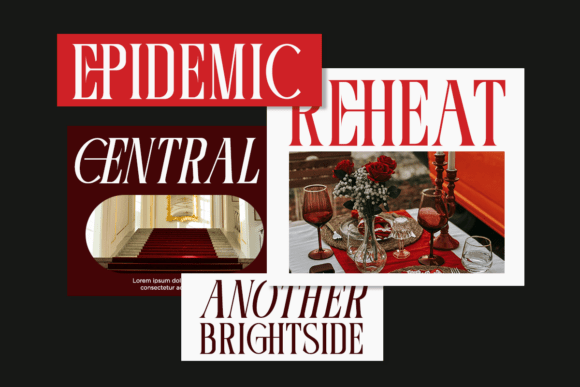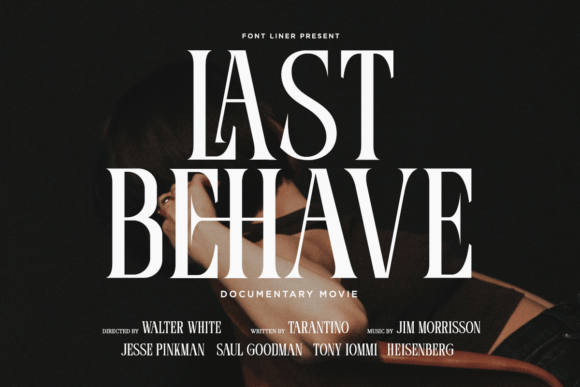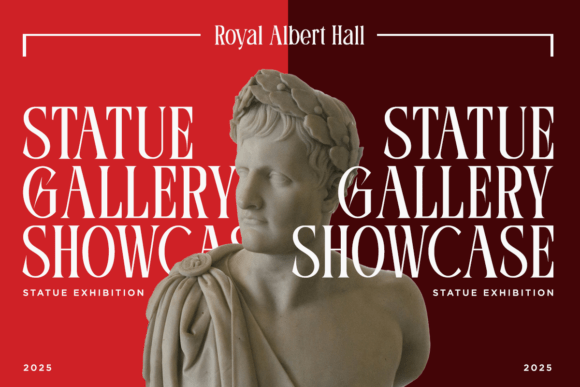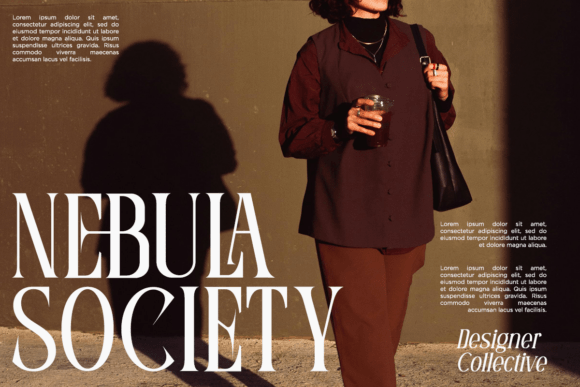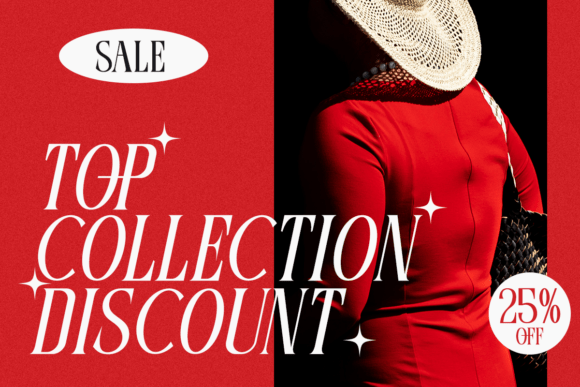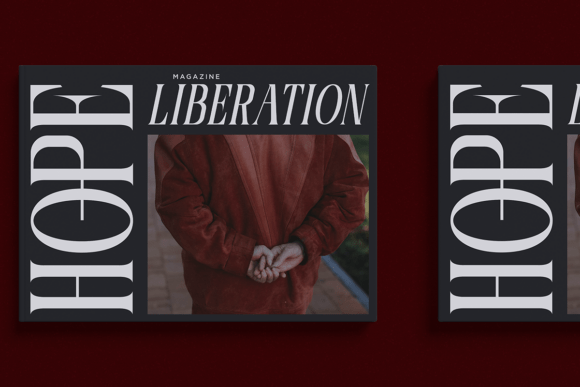
Introduction to Mofela Font
Have you ever been working on a creative project, staring at a blank canvas, and suddenly, the perfect font appears in your mind? It’s that magical moment when everything clicks, and your design starts to take shape. For many designers, this moment is often elusive, but with the right tools, it can become a reality. One such tool is the Mofela Font, a sophisticated ligature serif font that can elevate your designs to new heights.
Designed with sleek, elongated letterforms and refined contrasts, Mofela Font exudes timeless elegance and modern refinement. Its unique ligature combinations add a creative flair, allowing your designs to stand out with unique and seamless connections between characters. Whether you’re crafting a sophisticated headline or an elegant logo, Mofela Font delivers a premium, high-fashion aesthetic that elevates every project.
Key Features of Mofela Font
- Unique, hand-drawn design with a transparent background, perfect for creative projects that require a personal touch.
- Perfect for use in creative projects such as branding, logos, posters, and more.
Honest Review: Mofela Font
As a designer, I’m always on the lookout for high-quality design resources to elevate my creative projects. Recently, I stumbled upon the Mofela Font, and I’m excited to share my honest review with you.
- Unique and playful style
However, there are a few limitations to keep in mind: ⚠️ The font may not be suitable for projects that require a more professional or formal tone. Additionally, the font’s complexity may make it difficult to use for beginners.
Overall, I’m impressed with the Mofela Font, and I think it’s a great addition to any designer’s toolkit. With its unique style and high-quality design, it’s perfect for creative projects that need a bit of flair.
Getting the Most Out of Mofela Font
For optimal results, use the Mofela Font in conjunction with other high-quality design elements. Experiment with different font sizes, colors, and styles to create a visually appealing design. You can also use the Mofela Font in combination with a transparent background to create a seamless design.
The Mofela Font is ideal for use in a wide range of creative projects, including logos, branding materials, and marketing materials. Its high quality and versatility make it a popular choice among designers and non-designers alike.